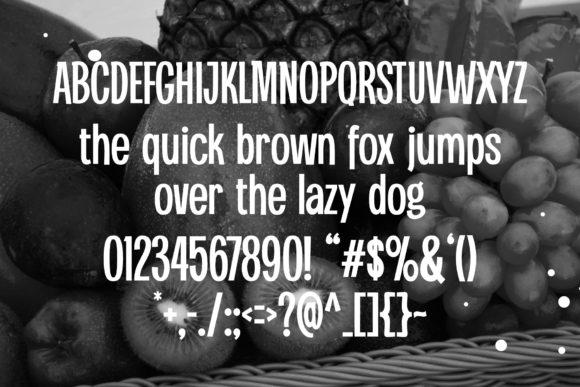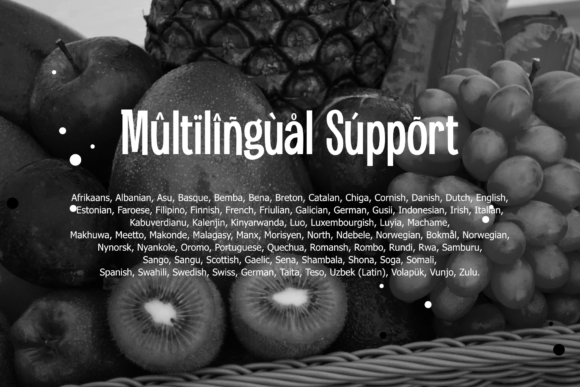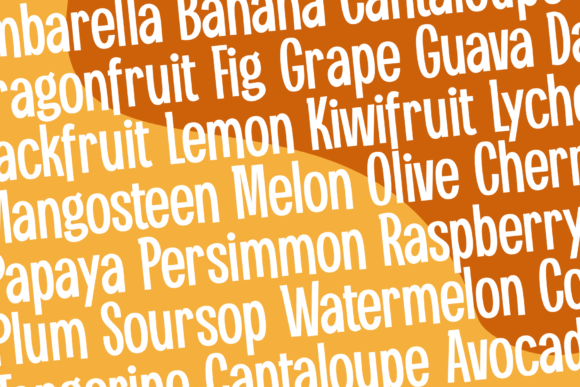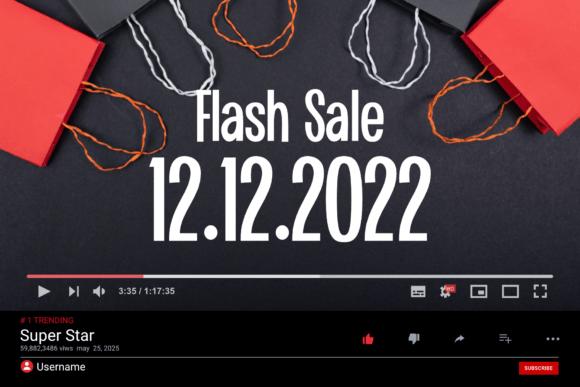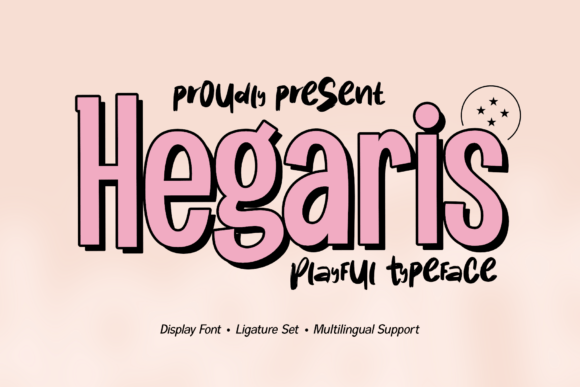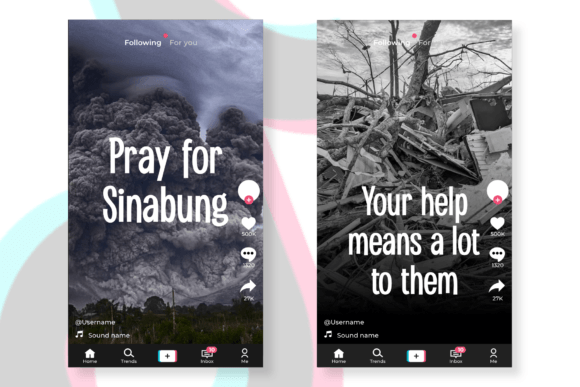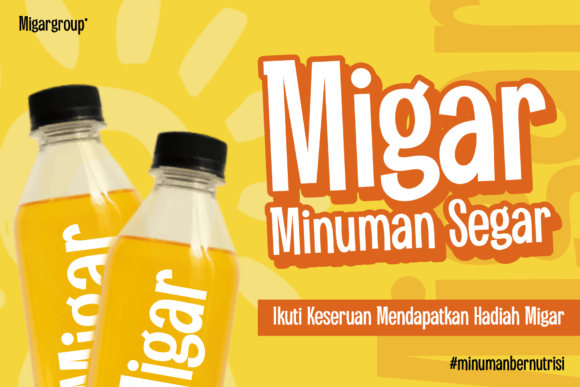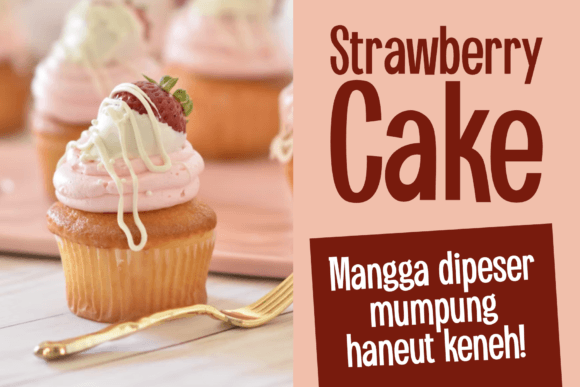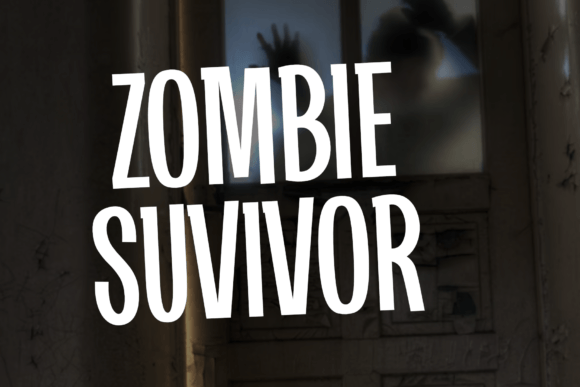
Hegaris
Hegaris Fonts
Hegaris: A Playful and Fresh Slab Serif Font
Hegaris is a playful and fresh slab serif font featuring impeccable form. This versatile typeface brings contemporary appeal to various creative applications, from social media to branding.
Key Features of Hegaris
• Playful Design: Offers fresh, engaging letterforms.
• Impeccable Form: Features clean, well-crafted characters[2].
• Modern Appeal: Brings contemporary style to designs.
• Versatile Usage: Adapts well to numerous applications.
Best Uses for Hegaris
Thanks to its versatile characteristics, Hegaris works especially well for:
When using Hegaris in your designs, keep these tips in mind:
• Try it for headlines to showcase its playful style.
• Use its fresh character for contemporary projects.
• Take advantage of its impeccable form for clean designs.
• Let its versatility enhance various applications.
To sum up, Hegaris is an excellent choice for designers seeking a playful and fresh slab serif font. Its versatility makes it perfect for various creative projects. Whether you’re creating social media content, designing packaging, or developing brand identities, Hegaris offers the perfect blend of playfulness and impeccable form.
Furthermore, Hegaris’s distinctive design allows it to shine in contexts where both freshness and clarity are key. From YouTube titles to book covers, this font can elevate your projects with its contemporary style. Also, its playful yet readable appearance works particularly well in designs that aim to make a modern impact.
In conclusion, Hegaris truly captures the essence of playful design in slab serif typography. Its ability to work across different applications shows how well it can serve various creative needs. Therefore, for those wanting to add a touch of fresh sophistication to their work, Hegaris can enhance any design with its distinctive style. Ultimately, it’s perfect for designers aiming to make a playful, contemporary impact across creative projects.